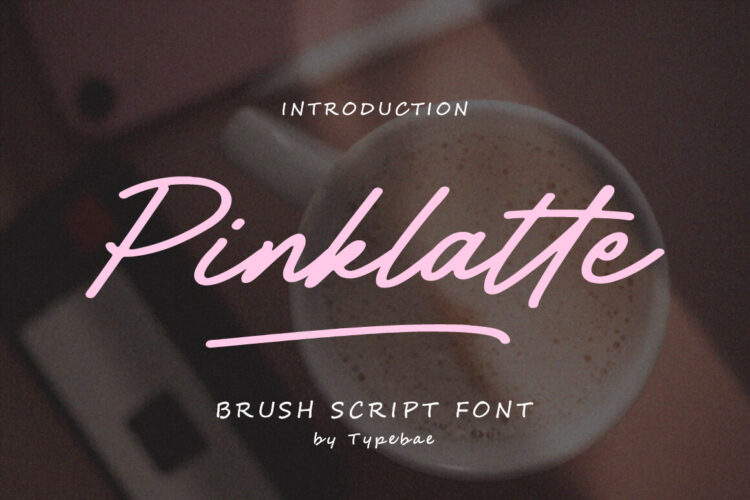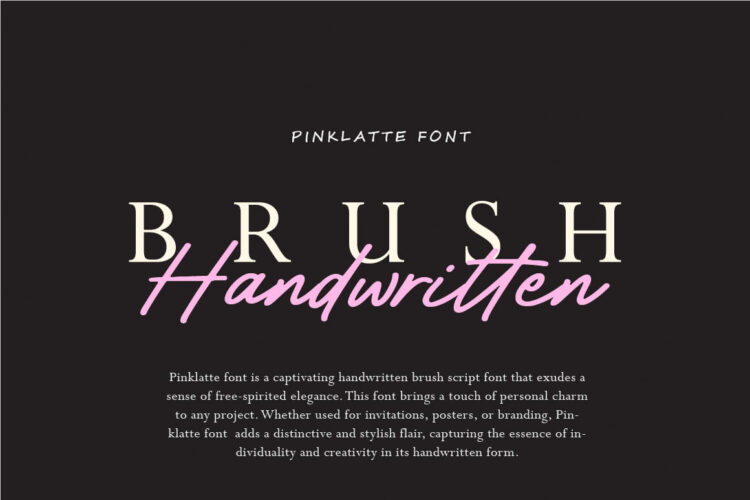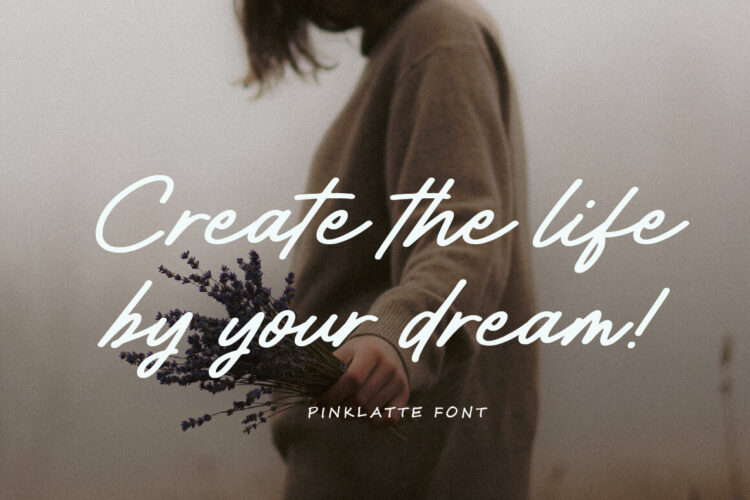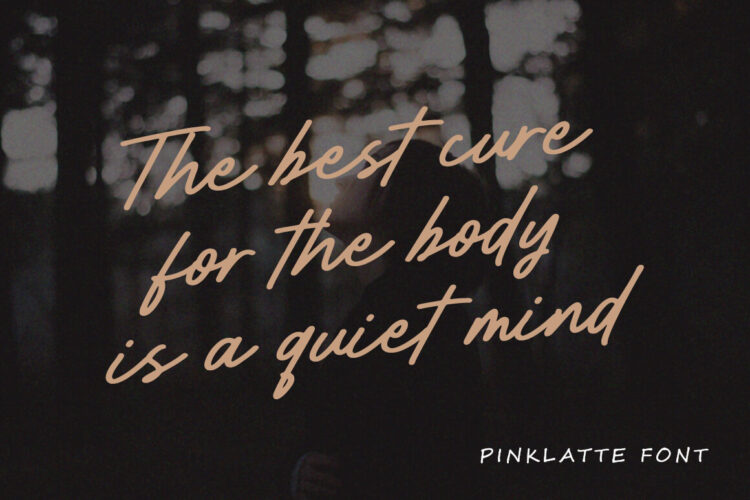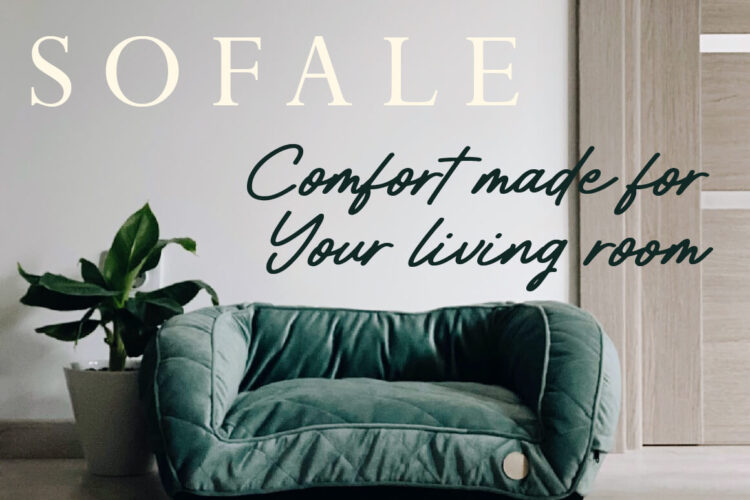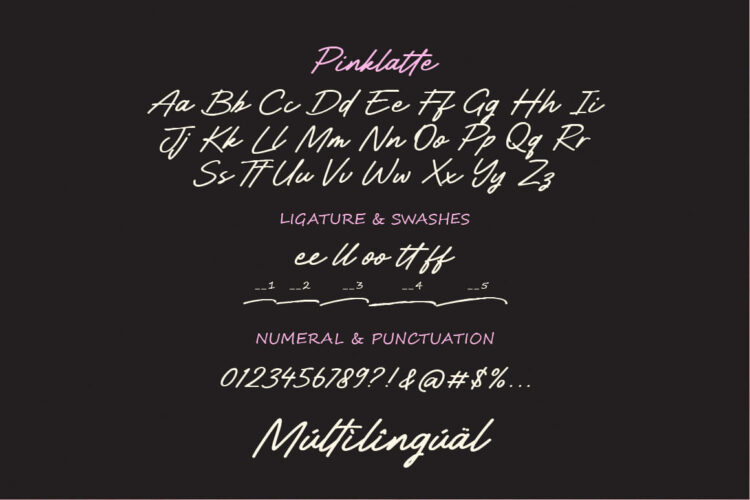
Handwritten Brush Script Font
Pinklatte
Pinklatte Font is a captivating handwritten brush script font that exudes a sense of free-spirited elegance. This font brings a touch of personal charm to any project. Whether used for invitations, posters, or branding, Pinklatte Font adds a distinctive and stylish flair, capturing the essence of individuality and creativity in its handwritten form.
• Uppercase, Lowercase, Numeral & Punctuation
• Ligature & Swashes
• Multilingual Support
Pinklatte – Handwritten Brush Font